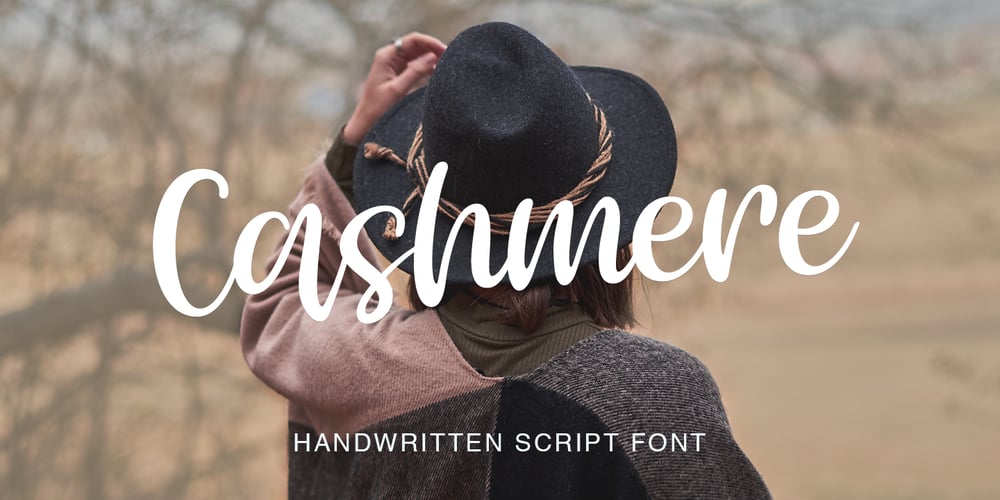
Cashmere
Cashmere font
Cashmere Font Family was designed by Pavel Larin and published by Larin Type Co. Cashmere contains 1 styles and family package options. Cashmere – sweet handwritten font with an incredible charm. Clean, elegant, it fits and turns any design project into a true stand out! Use this font for branding or create a logo, a beautiful frame for your home, decorate any project. Or just use it for book covers, stationery, marketing, a blog, magazines, and more.